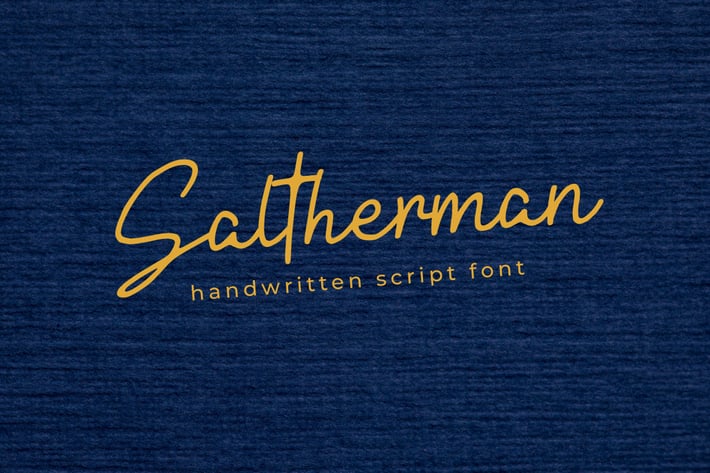
Saltherman - Handwritten Script Font
Introducing Saltherman – a beautifully crafted modern handwritten script font that encapsulates the charm of traditional calligraphy with a contemporary twist. Designed with meticulous attention to detail, this font features fluid, cohesive letters that convey warmth and personality, making it a perfect choice for a wide range of design projects.